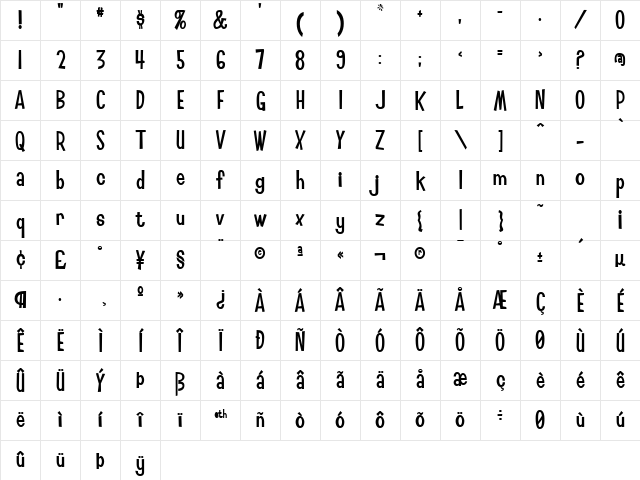
Smilage Regular Free Font
Smilage Regular
Design Context for Smilage
Smilage is a composed and adaptable typeface that performs quietly and consistently across a wide range of design contexts.